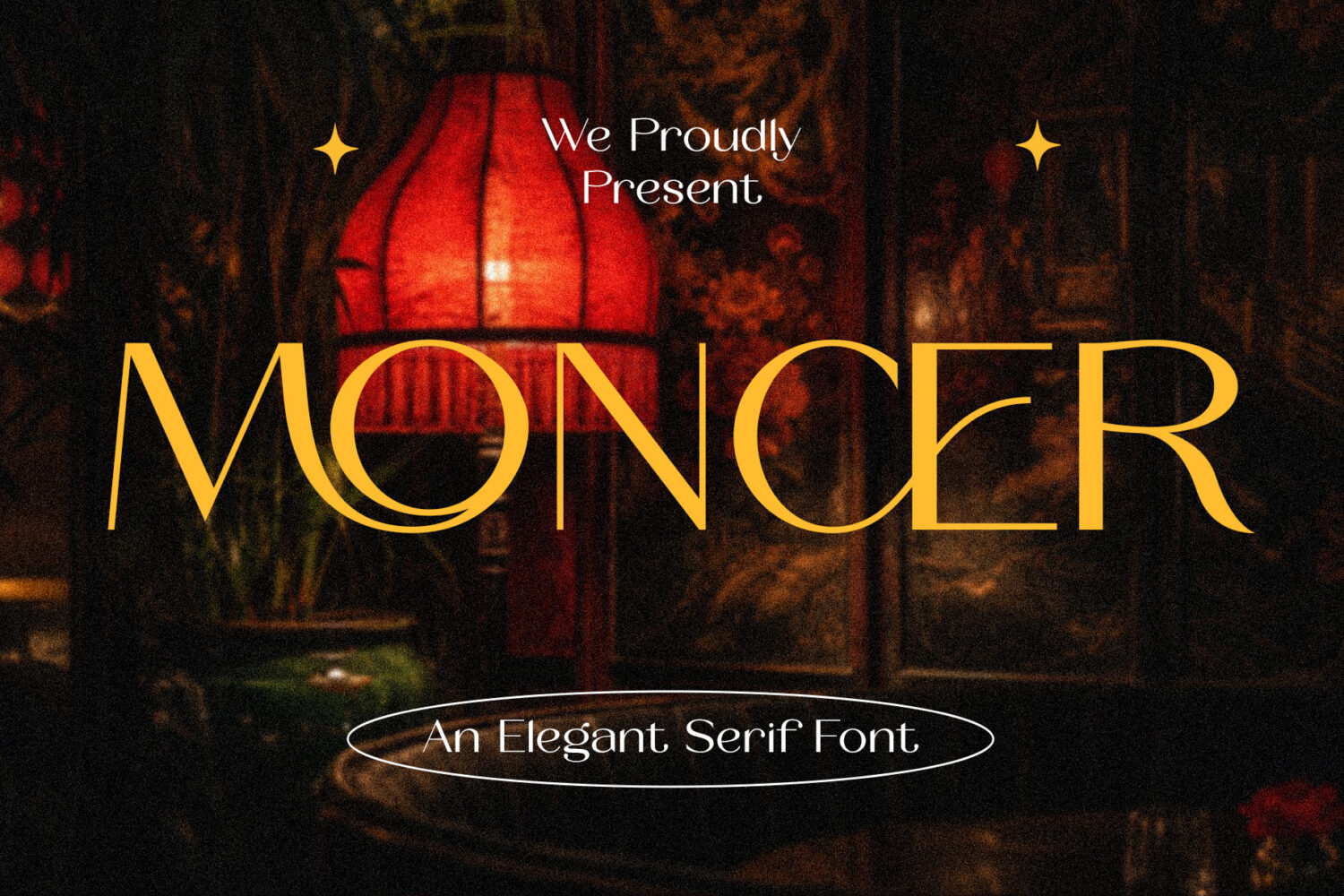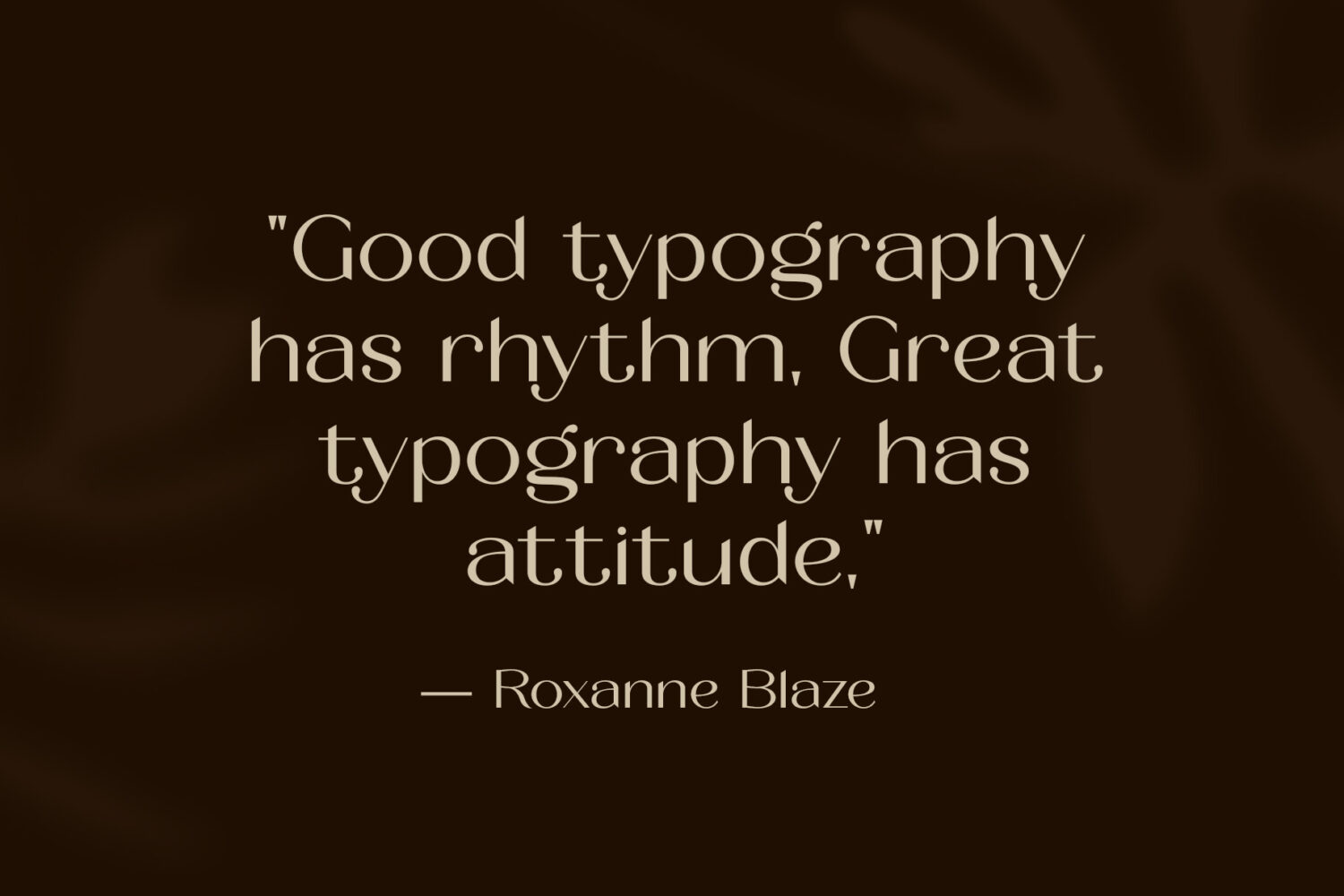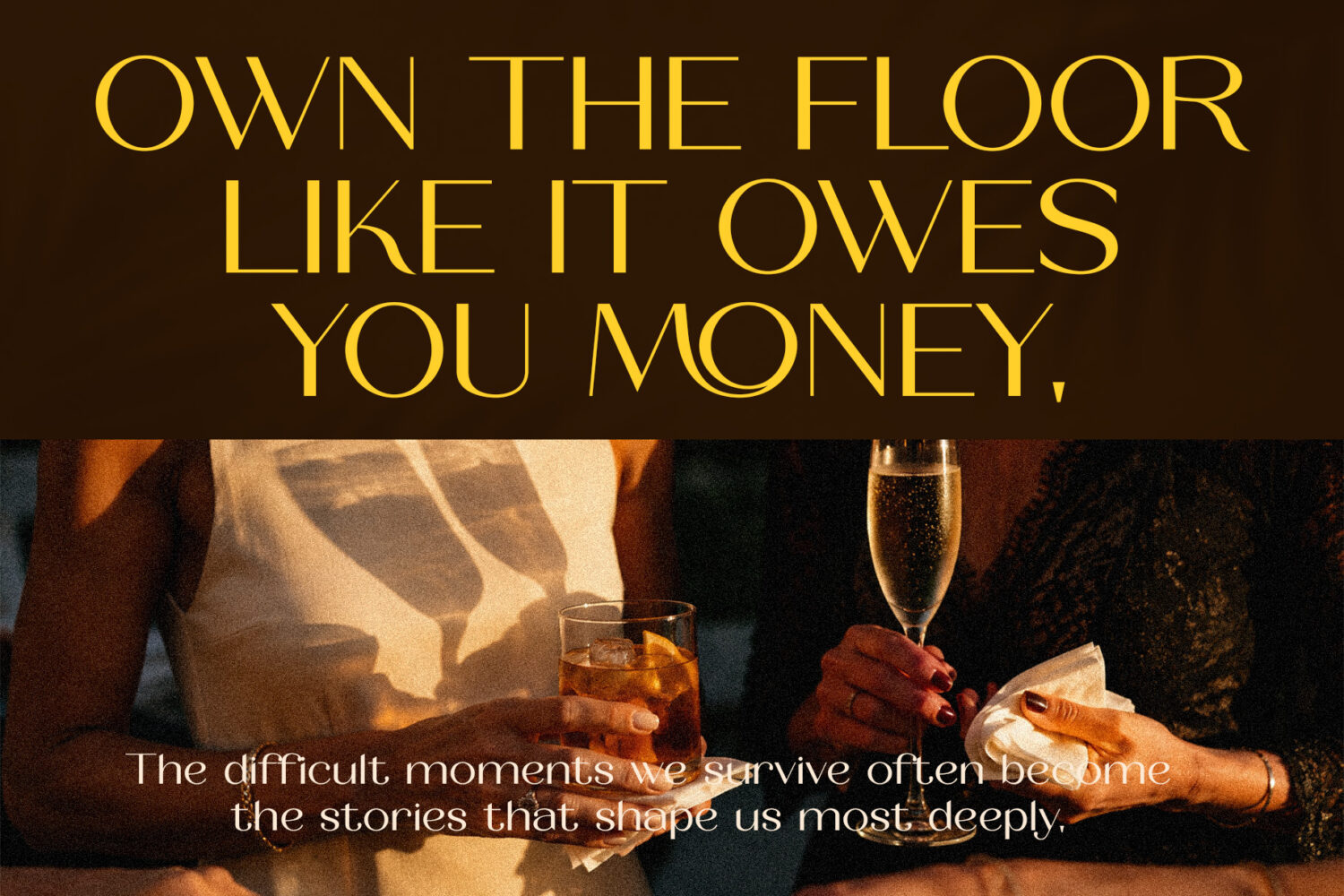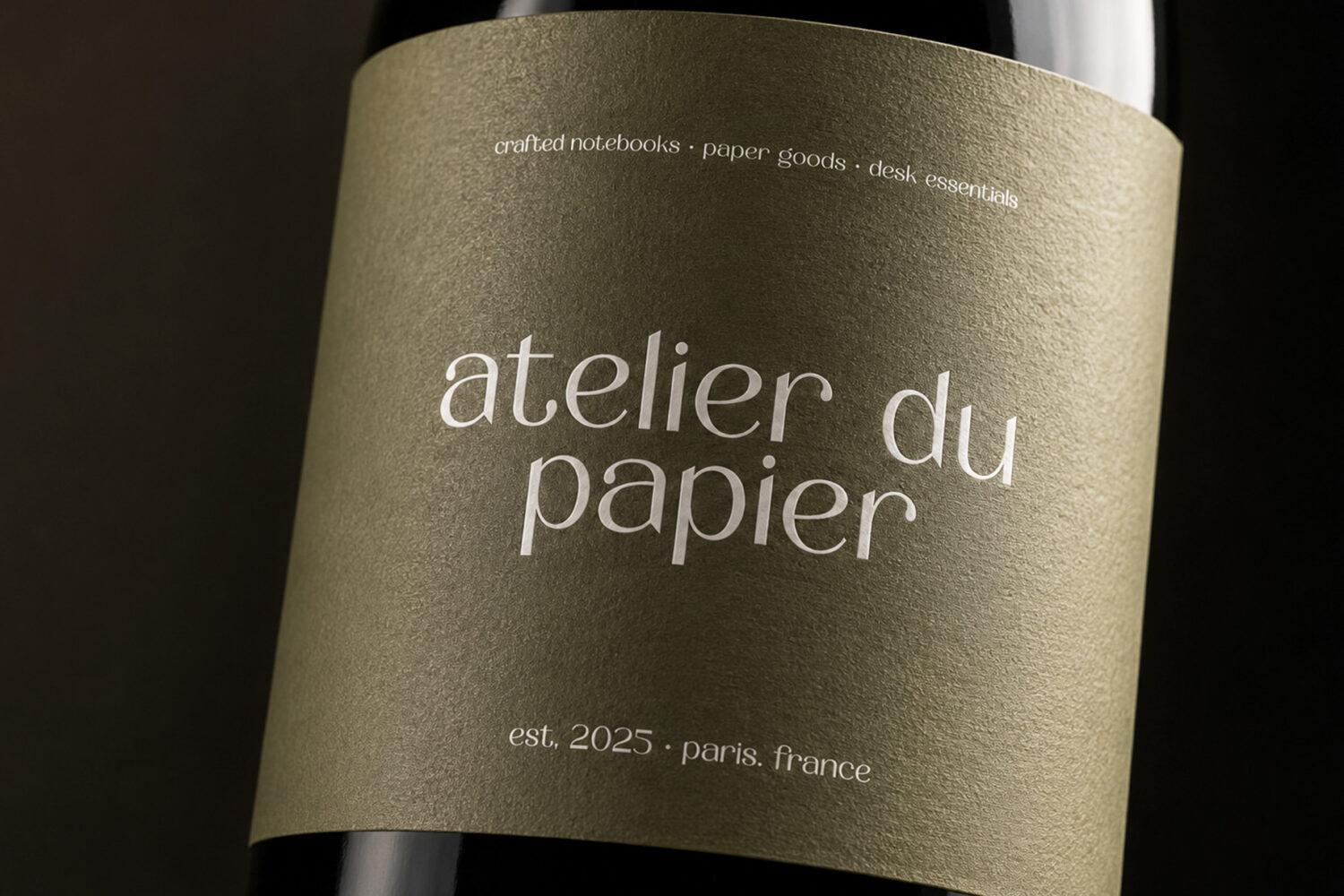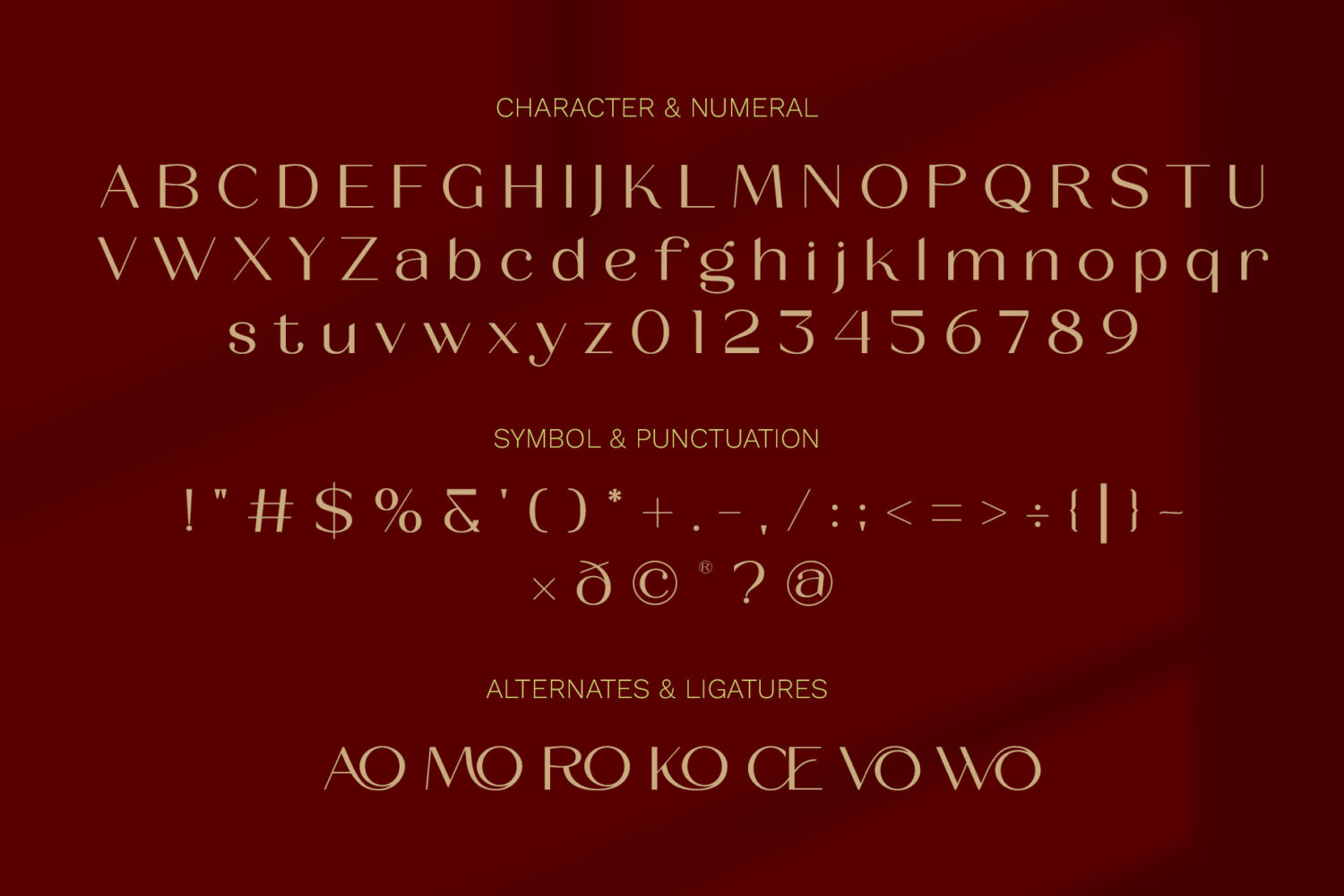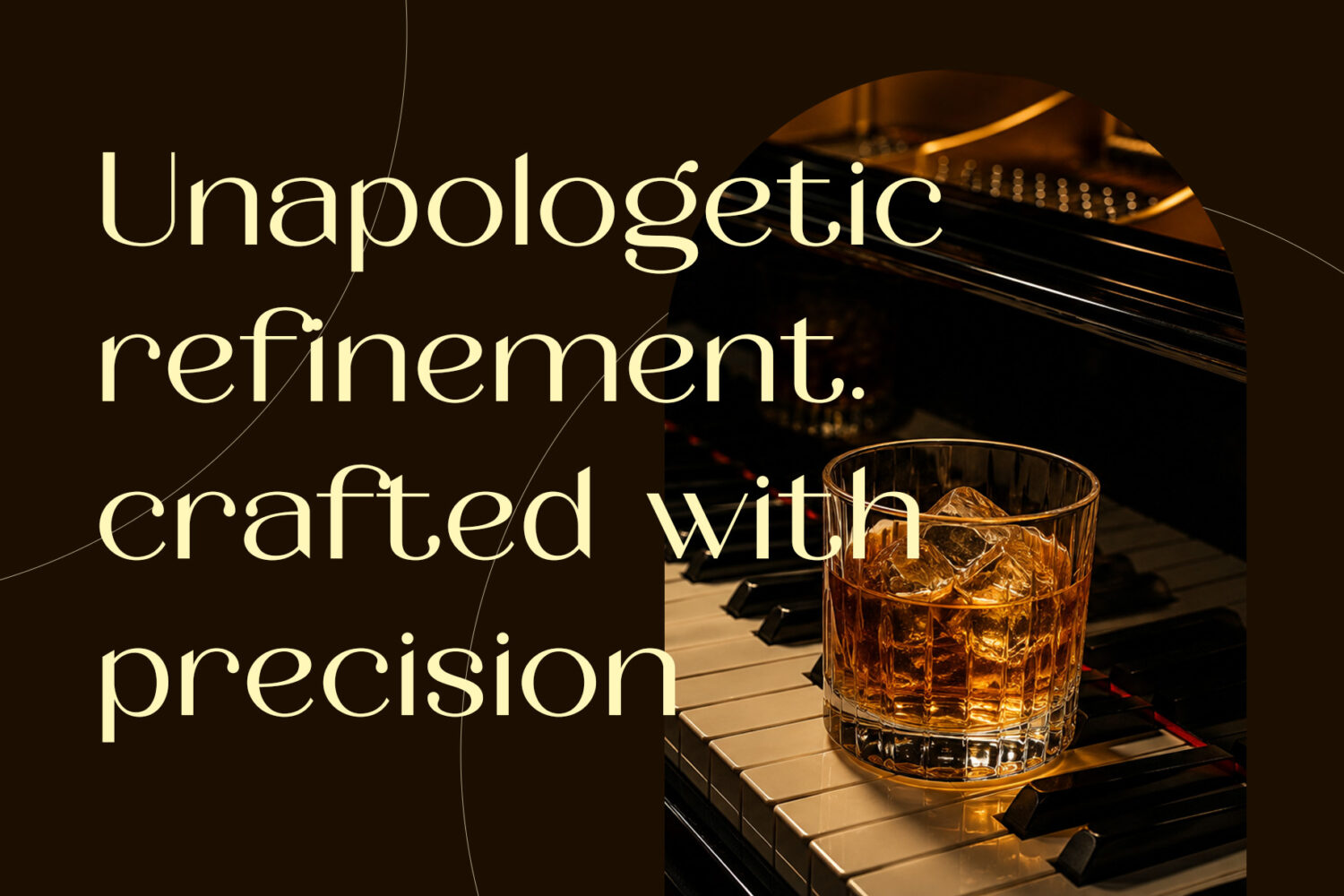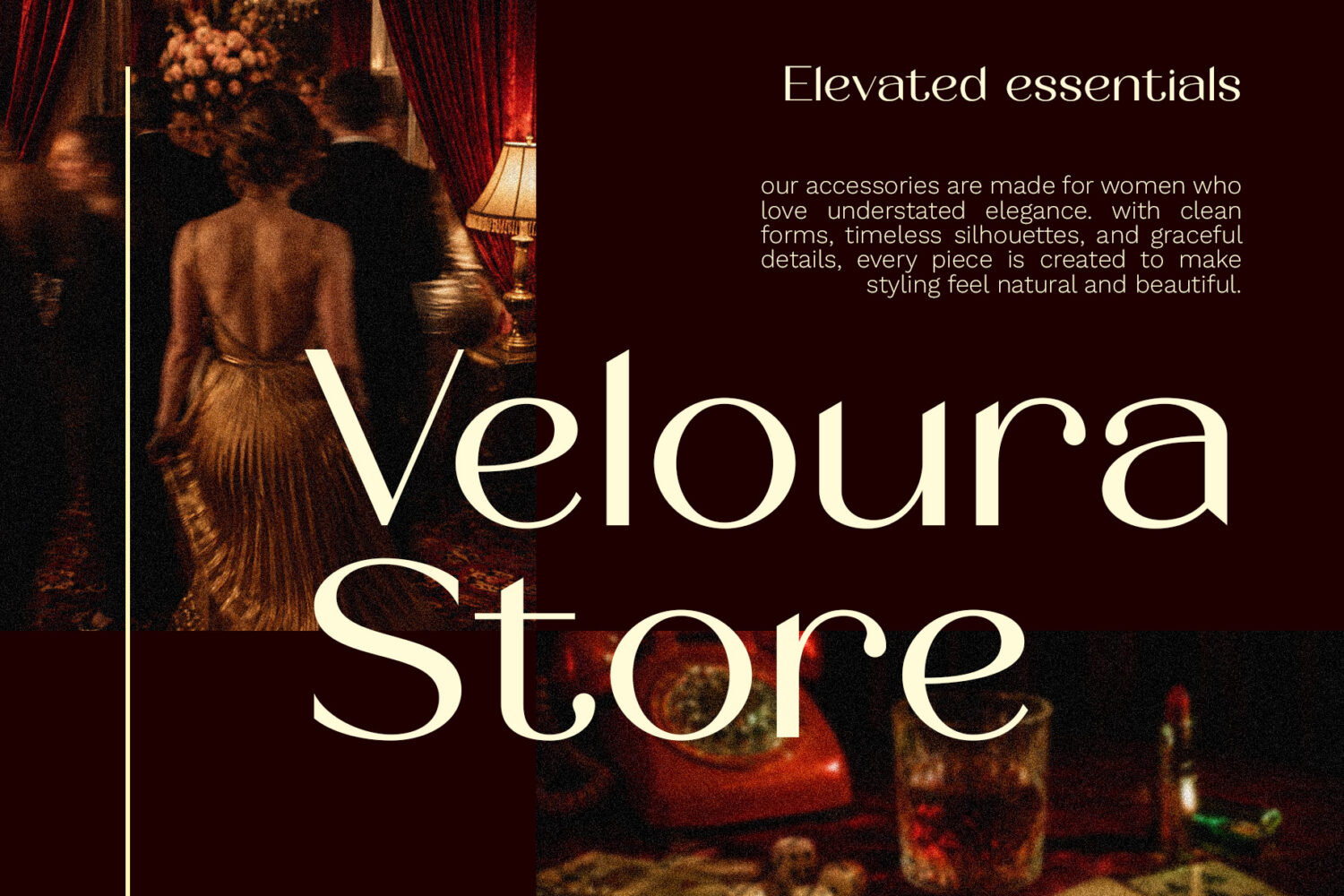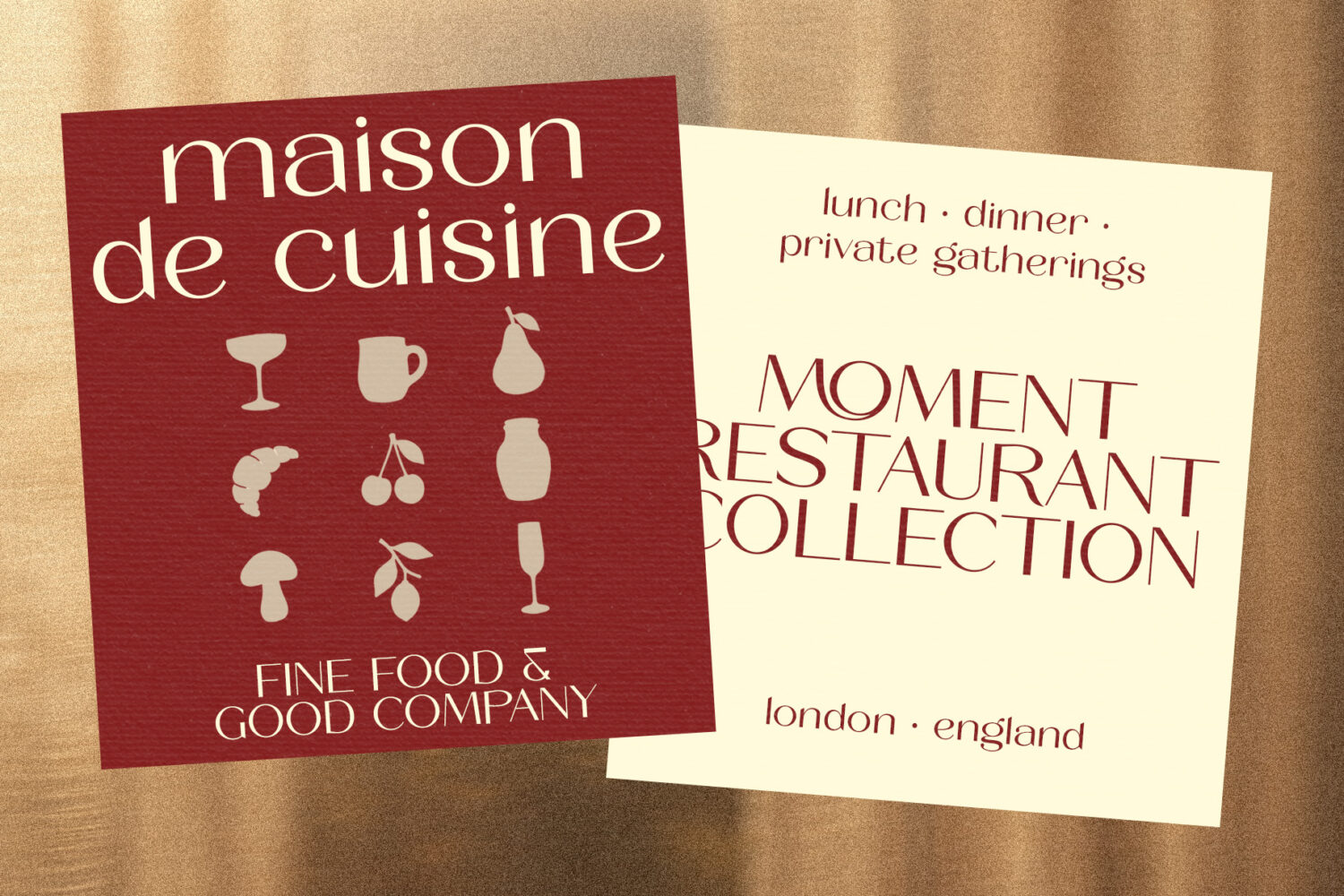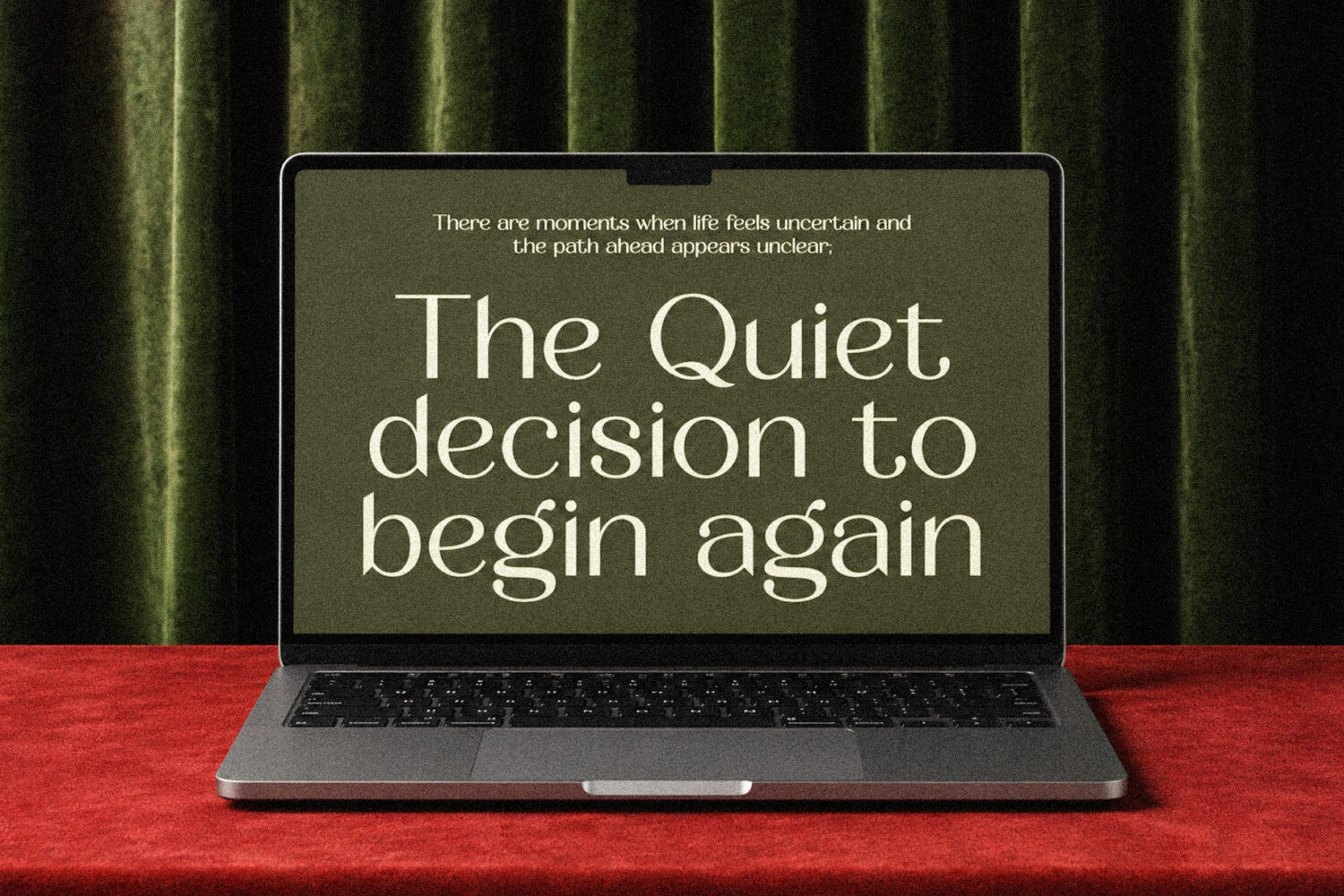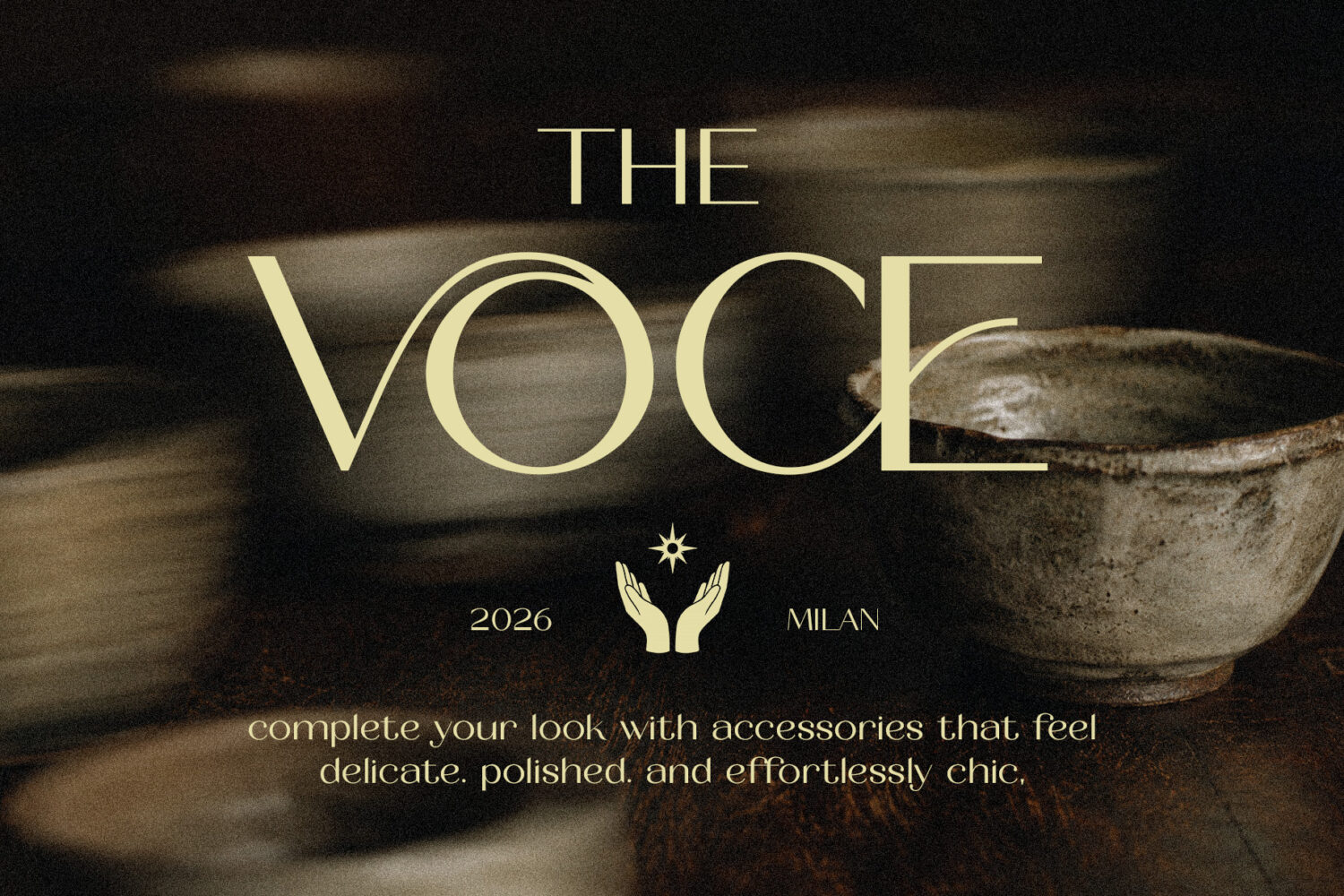
Moncer
Introducing Moncer the elegant, beautiful, and modern Serif. With its modern and minimalist look, Moncer brings a luxurious, classy, ​​and clean style to your projects such as websites, modern logos, brand identities, social media quotes, wedding stationery, magazines, and more!
Moncer features unique and classy capital letters A to Z and also comes with unique alternates making Moncer a beautiful font that can be customized for various projects and jobs you want.
Moncer is perfect for: logos, brands, wedding invitations, business cards, greeting cards, posters, magazines, social media, agenda prints, and websites.
– ligatures
Moncer – An Elegant Serif Font